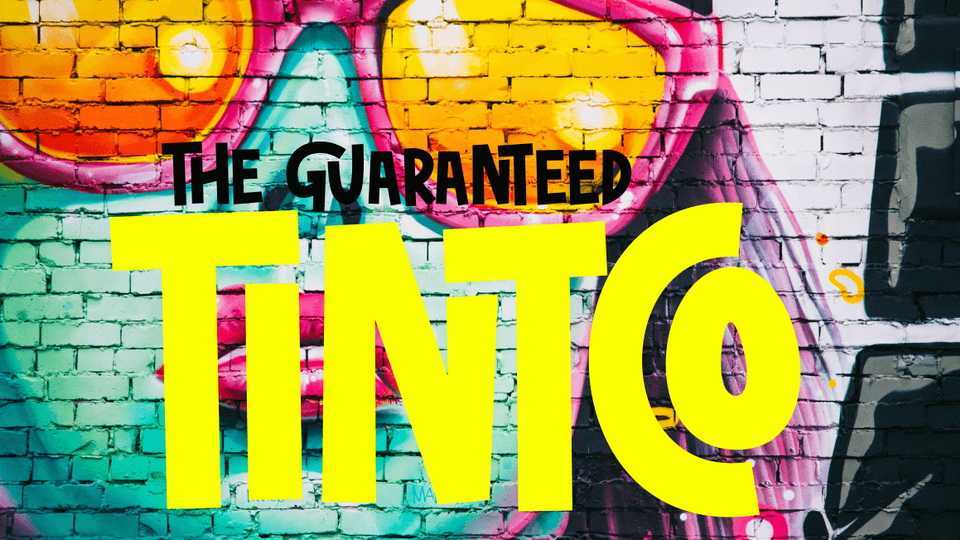
Download Tintco font, a strikingly bold typeface, perfect for any rebellious, and energetic poster. Headline, display, or body text, you name it. Tintco will make it perfect.